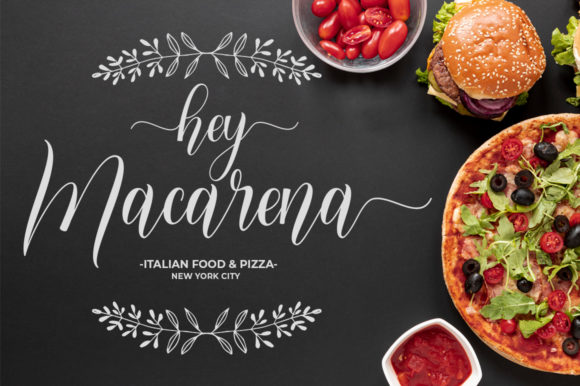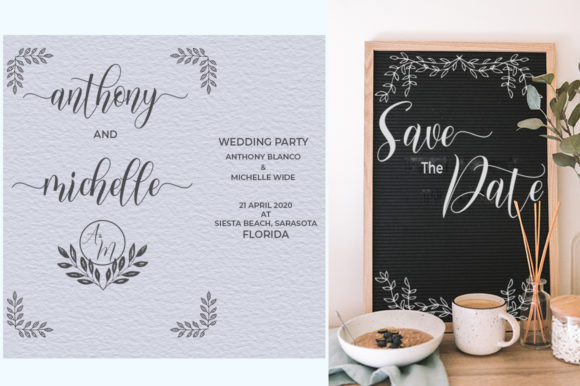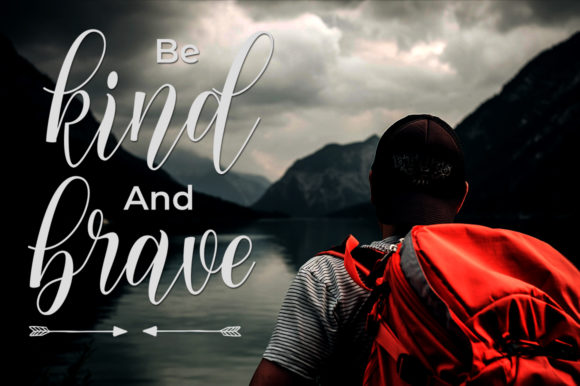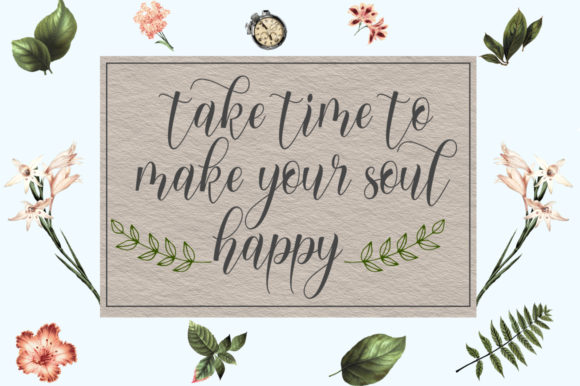
About Palmita Font
This joyful and modern calligraphy font features an incredibly romantic flow. It’s bouncy, beautiful, and flexible, so it’s highly recommended for wedding crafts, as well as for projects that require a sweet, playful and charming feel. Get inspired by its unique appeal, and elevate any crafting project with this one-of-kind script!
This font is PUA encoded which means you can access all of the gorgeous glyphs and swashes with ease! It also features a wealth of special features including alternate glyphs and ligatures.